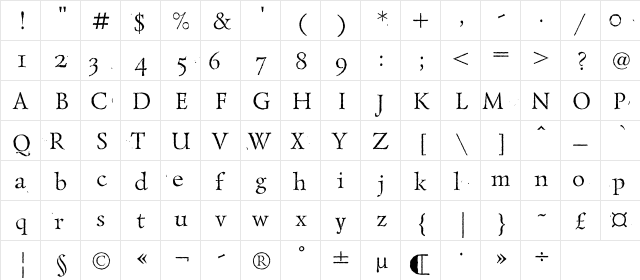
LazurAntiqDisplayC Regular
Design Context for LazurAntiqDisplayC Typeface
LazurAntiqDisplayC is built around its visual character rather than neutral utility — its distinctive forms are designed to make an impression at display sizes.
Font Pairing: Pair with a clean neutral sans-serif for body copy to let LazurAntiqDisplayC's character lead without overwhelming the composition.
Pro Tip: Use LazurAntiqDisplayC exclusively at display sizes — it was designed to be seen, not read at length. Let a neutral companion handle body copy.